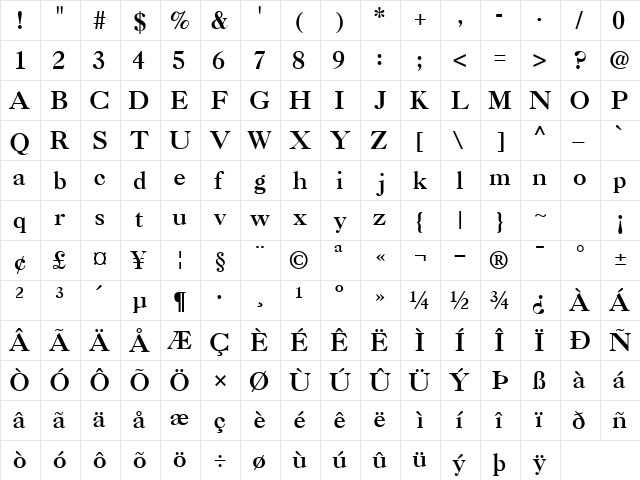
CaslonThreeSSK Regular
Design Context for CaslonThreeSSK Typeface
CaslonThreeSSK offers clean, dependable letterforms without strong stylistic allegiance, making it a practical choice for designers who need flexibility.
Pro Tip: Use CaslonThreeSSK in both headline and body roles to test its range before committing to a single application.